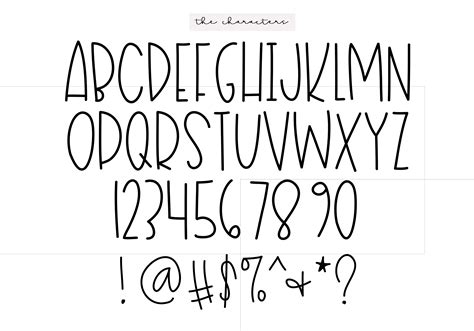
Unleash Your Inner Artist: Fun and Easy Fonts to Draw That Will Inspire Your Creative Side
Do you love doodling and drawing but struggle to come up with creative ideas? Are you looking for new ways to express yourself artistically? Look no further! We've got a list of fun and easy fonts to draw that will inspire your creative side.
But what if you're not a skilled artist or don't have much experience with drawing? No worries! These fonts are simple to draw and will make you feel like a pro. Plus, they're so much fun to create!
Here are a few examples to get you started:
Bubble Letters: These are perfect for adding a playful touch to any project. All it takes is drawing a basic outline and filling it in with color or patterns.
Calligraphy: This elegant style of writing looks fancy, but it's surprisingly easy to draw. Start with simple strokes and build up to more complex designs.
Graffiti: Turn your doodles into street art with graffiti-style fonts. These bold letters are perfect for adding a bit of edge to your work.
Whether you're using these fonts for lettering projects, coloring books, or just for fun, they are sure to bring out your inner artist. So, why not give it a try? You might just surprise yourself with what you can create.
So, grab your pencil and paper, and let's unleash your creativity with these fun and easy fonts to draw!
Art is something that everyone can enjoy and there are so many ways to be creative, including drawing fonts. Creating your own fonts is a great way to express yourself and unleash your inner artist. In this blog post, we will compare different fonts and their styles that you can draw easily and have fun with.
Hand-lettering vs. computer fonts
There are two types of fonts: hand-lettering and computer-generated. Hand-lettering requires more creativity, as it involves creating each letter from scratch. Meanwhile, computer fonts rely on software to generate letters, which could limit your freedom. We recommend trying both methods to see which you prefer.
| Hand-lettering | Computer Fonts |
|---|---|
| More creative | Limited freedom |
| Takes more time | Faster and easier |
| Unique | Commonly used |
Serif vs. Sans-serif
Fonts can also be grouped into two categories: serif and sans-serif. Serif fonts have small lines or flourishes called serifs at the end of each stroke, while sans-serif fonts lack them. Choosing between these two options depends on the overall look you're going for.
| Serif | Sans-serif |
|---|---|
| Traditional feel | Modern feel |
| Elaborate details | Clean and simple |
| Lacks versatility | Highly versatile |
Bubble Letters
Bubble Letters are one of the easiest and most fun fonts to draw. They are highly versatile and can be used in various projects, such as greeting cards, posters, and banners. Start by sketching out block letters, then round their edges and add shaded areas to create the bubbly effect.
Graffiti Letters
Graffiti letters were originated from urban street arts. It utilizes creative stylization, pop-art elements, and vibrant colors. It's not just limited to walls and building, instead, you can use it in various media designs to create an enticing visual impact.
Calligraphy Letters
Calligraphy letters require more precision and skill to master than other fonts. It would be best if you use a pen that can adjust its nib size to create legible strokes that interconnect correctly. Calligraphy letters give a traditional and artistic flair to your writing, adding a touch of sophistication to your projects.
Neon Letters
Neon Letters are fonts that precisely replicate neon signs that we often see in shops or bars. Their swooping, curlicue forms make any project's text shout out to its viewers. Additionally, it adds a retro vibe that takes on an 80's-90's feel.
Egyptian Letters
Egyptian letters are an ideal font for ancient-themed projects or logos. Egyptian typography features a triangular shape that tapers down to the baseline, and they work well on negative spaces. You can also use line variation and contrast to add depth and elegance to the letters.
Chalkboard Letters
Chalkboard letters are perfect for making rustic-looking signs or frames. Using chalk, create letters with drawn leave spaces around them. Then, thicken your text with an outline, giving a visual impression of the chalk residue.
Opinion: Unleashing Your Inner Artist with Fun and Easy Fonts
Create something unique and beautiful with fun, easy-to-draw fonts. Unleashing your inner artist means allowing yourself to experiment freely, develop new ideas, or challenge existing notions unconventionally. Drawing your fonts can help you achieve that and more, without any limitations.
No, you don't need any special tools. All you need is a pen or pencil and some paper. However, the book does include recommendations for pens and markers that can help you achieve different effects.
Is Unleash Your Inner Artist suitable for beginners?
Yes, Unleash Your Inner Artist is suitable for beginners. The book includes clear and easy-to-follow instructions, and each font style is broken down into simple steps. Even if you've never tried drawing fonts before, you'll be able to follow along and create beautiful designs.